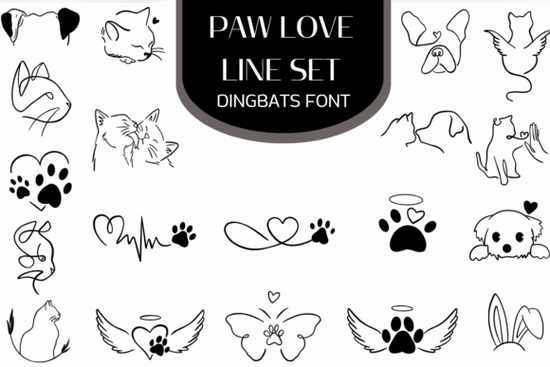
If you're creating designs for pet lovers whether it's custom apparel, memorial keepsakes, or branding for a vet clinic you know how important it is to find graphics that feel personal without being overly fussy. That’s where the Paw Love Line Set Font comes in handy. This dingbat font delivers clean, single-line illustrations of cats, dogs, paw prints, and heartfelt symbols like winged paws and paw-print hearts all accessible just by typing a letter or symbol.
What kinds of projects work well with this font?
The minimalist line-art style of the Paw Love Line Set makes it adaptable across many creative uses:
- Temporary tattoos – The continuous-line drawings translate beautifully to skin-safe transfers, perfect for pet adoption events or fundraisers.
- Pet memorial items – Engrave or print subtle paw silhouettes on urns, photo frames, or sympathy cards without overwhelming the design.
- T-shirt and tote bag prints – Pair a small dog outline with a short phrase like “Adopted & Loved” for understated yet meaningful merch.
- Veterinary or pet business branding – Use a winged paw as a logo accent or social media icon to convey compassion and care.
- Handmade greeting cards – Add a tiny cat face next to “Thinking of You” for a personalized touch that resonates with fellow pet parents.
Because every glyph is a single stroke, it cuts cleanly on vinyl, engraves precisely on wood or metal, and scales without losing clarity ideal for both digital and physical products.
How does it compare to other pet-themed fonts?
Many animal-themed fonts lean heavily into cartoonish styles or filled-in shapes, which can limit their use in cutting machines or fine-line engraving. The Paw Love Line Set stands out because it’s built specifically as a line drawing font. There are no solid fills, no complex layers just elegant outlines that maintain integrity at small sizes.
You’ll also find symbolic combinations not commonly available elsewhere, like the “dog’s best friend handshake” (a human hand clasping a paw) or hearts made entirely of paw prints. These aren’t just decorative they carry emotional weight, which matters when you’re designing for grief, celebration, or advocacy.
Who should consider using this font?
This tool is especially valuable if you fall into one of these groups:
- Print-on-demand sellers looking to expand into the evergreen pet niche with designs that feel authentic, not generic.
- Small pet businesses (groomers, trainers, rescues) wanting affordable, scalable branding elements.
- Papercrafters and card makers who appreciate subtle, meaningful embellishments.
- Memorial artists creating custom tributes where simplicity speaks louder than detail.
Even hobbyists making gifts for friends will find it easy to personalize mugs, keychains, or wall art with a few keystrokes no illustration skills required.
Also, since these are outline-only designs, avoid using them over busy backgrounds. They shine best on light, solid colors or as standalone engravings.